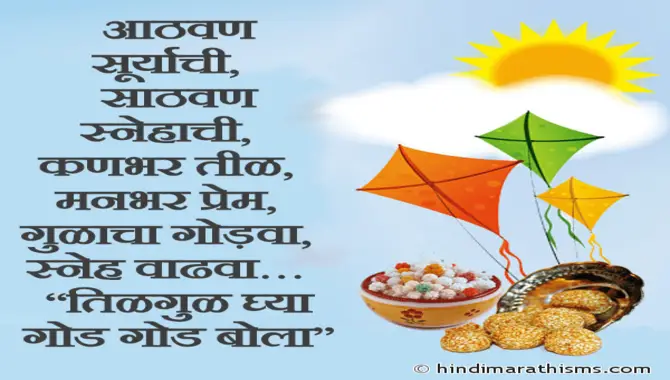
“Til Gul Ghya God God Bola” is a well-known phrase in the Marathi language, exchanged during the Makar Sankranti festival in Maharashtra, India.
It represents the tradition of eating sesame and jaggery while expressing kind and sweet words to spread happiness and good wishes among people.
We will explore the significance of the phrase til gul ghya god god bola in marathi font and its visual representation in Marathi font. From understanding the font features, family, typeface, character set, and glyphs to learning how to use this font, we’ve got you covered.
Til Gul Ghya God God Bola In Marathi Font – An Overview
The phrase “Til Gul Ghya God God Bola” is significant during Makar Sankranti in Maharashtra, celebrated in January. Embrace Marathi heritage and typography with creative designs incorporating this phrase. Spread joy and good wishes through Marathi fonts, showcasing the beauty of this rich culture.
Marathi font translates to “Eat sesame and jaggery and speak sweetly.” This phrase symbolizes the festival’s spirit, which is all about spreading sweetness and good wishes. Sesame and jaggery are traditional foods consumed during Makar Sankranti.
Eating them together represents the coming together of different flavors and experiences in life. By saying “Til Gul Ghya God God Bola,” people express their wishes for a year filled with sweetness, happiness, and positive interactions.
The Font Features
The Marathi font used for “Til Gul Ghya God God Bola” is bold. Decorative and incorporates traditional elements like dots and diacritical marks. With graceful curved strokes, this beautifully scripted font adds a traditional touch to the text, making it easily readable in a large font size.
Regarding font features, it can be written in various fonts depending on personal preference or the platform being used. Some commonly used Marathi fonts include Balbharati, Shree Lipi, and Kiran. These fonts are designed specifically for displaying Marathi text and can be easily installed on computers or mobile devices to ensure an accurate representation of the phrase.
The Font Family
Marathi font families are crucial in conveying the aesthetic and readability of the Til Gul Ghya God God Bola message. These font families hold immense significance in Maharashtra, India, especially during the celebration of Makar Sankranti in January.
Popular Marathi font families such as Shree Lipi, Kiran, Lohit Devanagari, and Balbharati offer diverse styles and characteristics. The choice of the right font family harmonizes. The traditional essence with the cultural wealth that Til Gul Ghya God God Bola represents ensures the text is legible and clear.
The Typeface
Choosing the right typeface is crucial for the aesthetics of Til Gul Ghya God God Bola in Marathi Font. Traditional fonts like Kiran or Shusha bring a classic and authentic touch. While Baloo or Hind Siliguri offers a more contemporary feel. Legibility is key, particularly for longer texts, so consider font weight and style variations. Enhance your design with visually captivating fonts, ensuring the message of Til Gul Ghya God God Bola shines through without compromise.
The Character Set
Marathi fonts are crucial in the Til Gul Ghya God God Bola tradition, celebrated during Makar Sankranti in Maharashtra, India. Featuring fonts like Shree Lipi, Kiran, Lohit Devanagari, and Balbharati, they bring a touch of authenticity to the Til Gul Ghya God God Bola message.
From ancient traditions to modern interpretations. Marathi fonts capture the essence of this festive occasion. Where sesame seeds (til) and jaggery (gul) are exchanged, representing sweetness and togetherness. Discover the beauty of Marathi fonts as you celebrate Makar Sankranti, a joyous Hindu festival, and immerse yourself in the rich cultural heritage of Maharashtra.
The Glyphs
The unique features and characteristics of the glyphs used in Marathi font for writing “Til Gul Ghya God God Bola” in Marathi font contribute to its visual identity. Influenced by the Devanagari script, Marathi glyphs incorporate modifications specific to the language. Accurate representation and interpretation of the phrase require understanding the design and structure of these glyphs.
How To Use This Font
You’ll need a Marathi typing software or keyboard to use “Til Gul Ghya God God Bola” in Marathi font. Open the desired application, switch your input language to Marathi, and type the phrase using the Marathi keyboard layout. Make sure you’ve selected the appropriate font style for the Marathi text.
Differences Between This Font And Other Fonts
Marathi fonts have unique characters and letterforms specific to the language. Til Ghya God God Bola font, a popular Marathi font, adds a touch of authenticity and traditional charm to text. It captures the essence of the festive occasion, adding authenticity and cultural significance. Other fonts may not convey the essence of the Marathi language and traditions as effectively as Til Ghya God God Bola font.
5.What Is The Significance Of “Til Gul Ghya God God Bola” In Marathi Culture?
Ans: “Til Gul Ghya God God Bola” is a well-known phrase in Marathi culture. That holds significance during the festival of Makar Sankranti. It represents the act of sharing sweetness and good wishes among individuals. “Til” symbolizes sesame seeds, while “Gul” refers to jaggery or sugar.